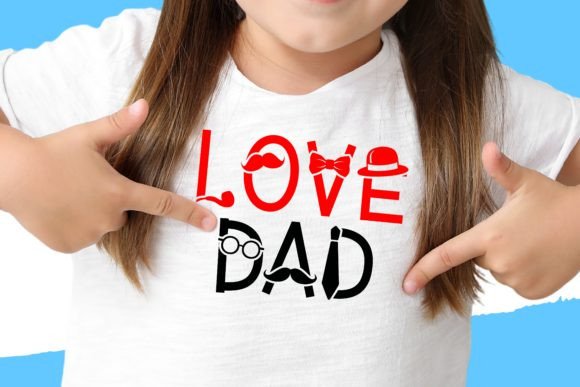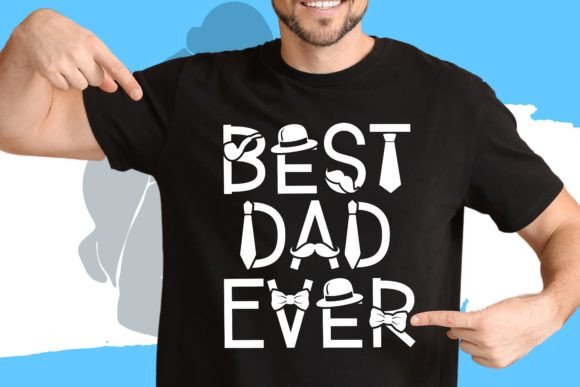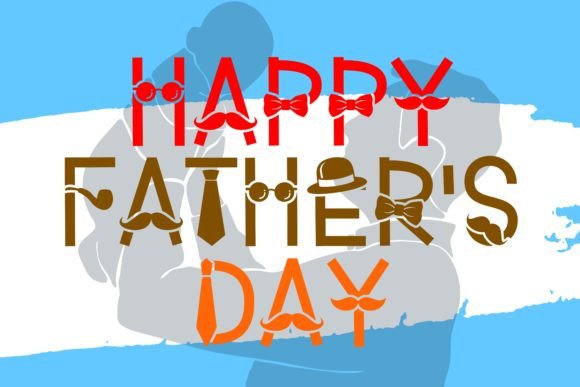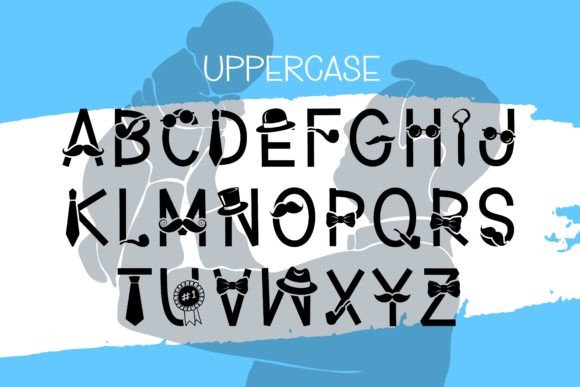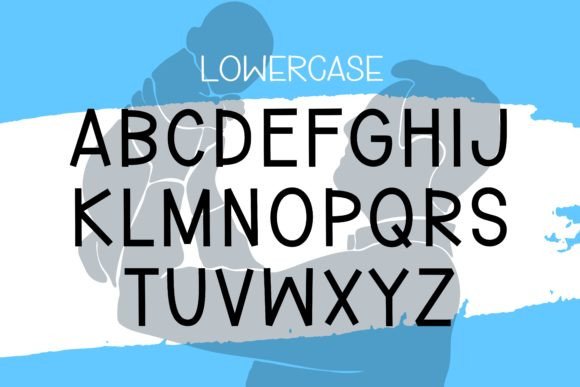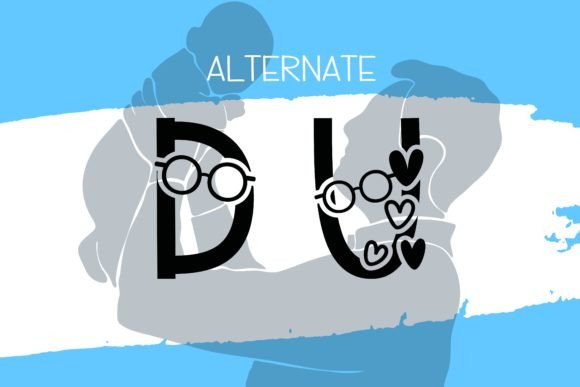
Adding a Personal Touch: The Joy of Father Font
Who among us hasn’t been inspired by a child’s creative expression? The way they see the world with wide eyes and an open heart, where every moment is a chance to create something beautiful. As designers, we strive to capture that same sense of wonder in our work, and for many of us, that means finding the perfect font to convey our message.
Enter Father Font, a delightful and charming decorative font designed to bring a touch of warmth and personality to any project. Whether it’s a Father’s Day card, a dad’s birthday party invitation, or simply a way to add some visual interest to your design, Father Font is the perfect choice. Its friendly and lovely style is sure to make your work stand out and leave a lasting impression on your audience.
Father Font Key Features
- Font Family: A unique, high-quality font designed specifically for use in digital displays, including LCD screens and mobile devices.
- Size: Offers a range of font sizes, from 8 to 72 points, making it suitable for various applications, including body text, headings, and titles.
- Resolution: Optimized for high-resolution displays, with clear and crisp text rendering at resolutions up to 300 DPI.
- Language Support: Includes support for multiple languages, including Latin, Cyrillic, and Greek scripts, making it a versatile font for global use.
- Unique Characteristic: Features a distinctive, modern design aesthetic with a friendly and approachable feel, making it an ideal choice for applications where a warm and inviting tone is desired.
Designer Review: Father Font
As a designer, I’ve had the chance to work with Father Font, and I must say, it’s a unique and interesting choice. ✨ Here are some aspects where it shines:
- ✨ Unconventional aesthetic: Father Font offers a distinctive, hand-drawn feel that sets it apart from more traditional fonts.
- ✨ Wide language support: This font is compatible with a vast array of languages, making it suitable for multilingual projects.
- ✨ Stylistic versatility: Father Font can adapt to various design styles, from modern to vintage, and even playful or serious contexts.
- ⚠️ Limited readability at small sizes: While Father Font is stunning at larger sizes, its intricacies can become difficult to read when scaled down.
- ⚠️ Potential overuse: The font’s distinctive style might become overwhelming if overused or misused in a project.
Overall, Father Font is a creative and versatile choice, but it’s crucial to weigh its unique strengths against its potential limitations. With thoughtful application, it can add a delightful touch to your designs.
For best results, use the font in combination with a clean and simple design aesthetic.
To get the most out of it, use the font in conjunction with bold lines and geometric shapes.
For best results, use the font in combination with a clean and simple layout.
The “Father Font” is ideal for use in:
– Headings and titles
– Business cards and letterheads
– Brochures and flyers
– Branding and identity design